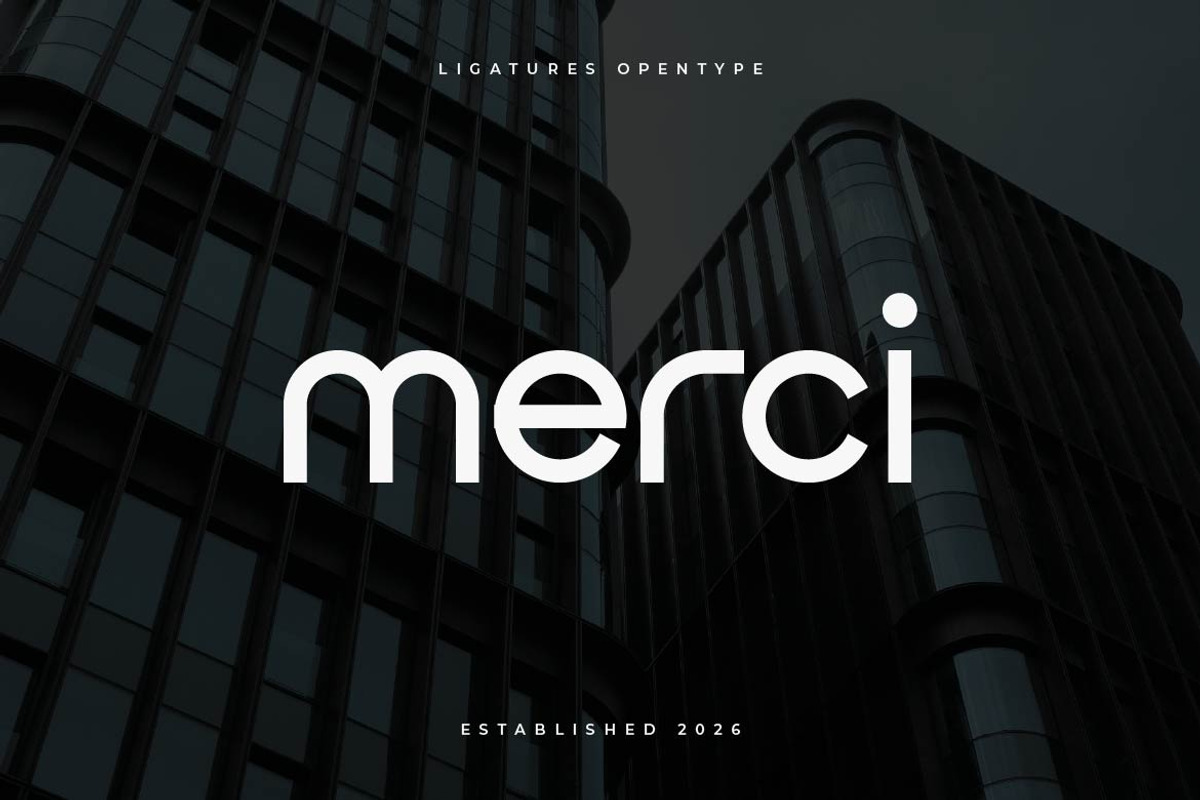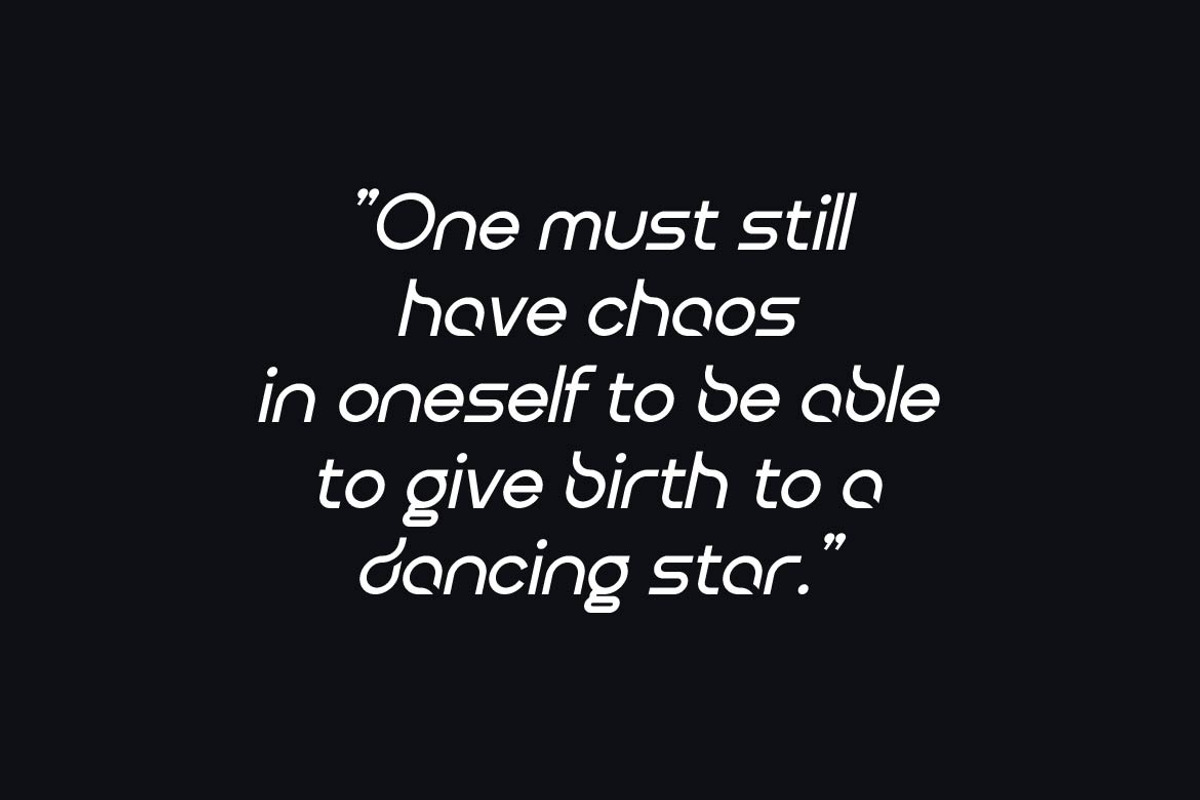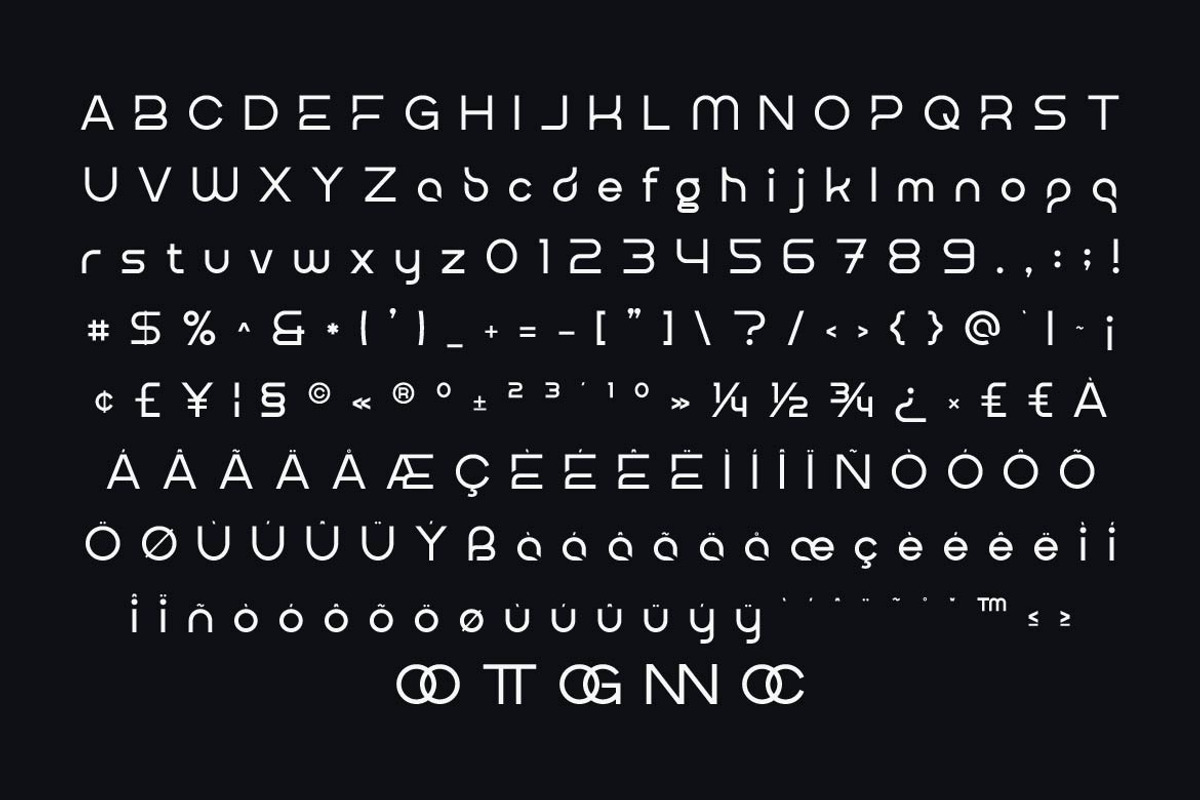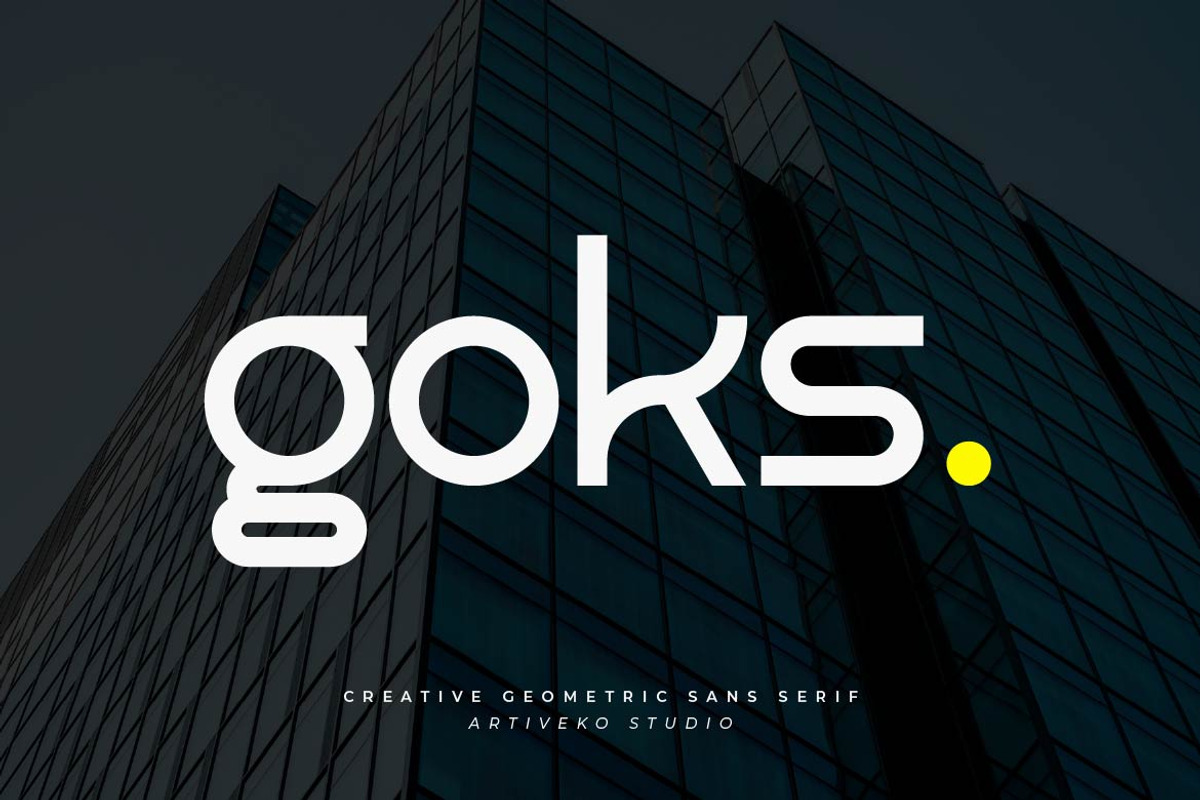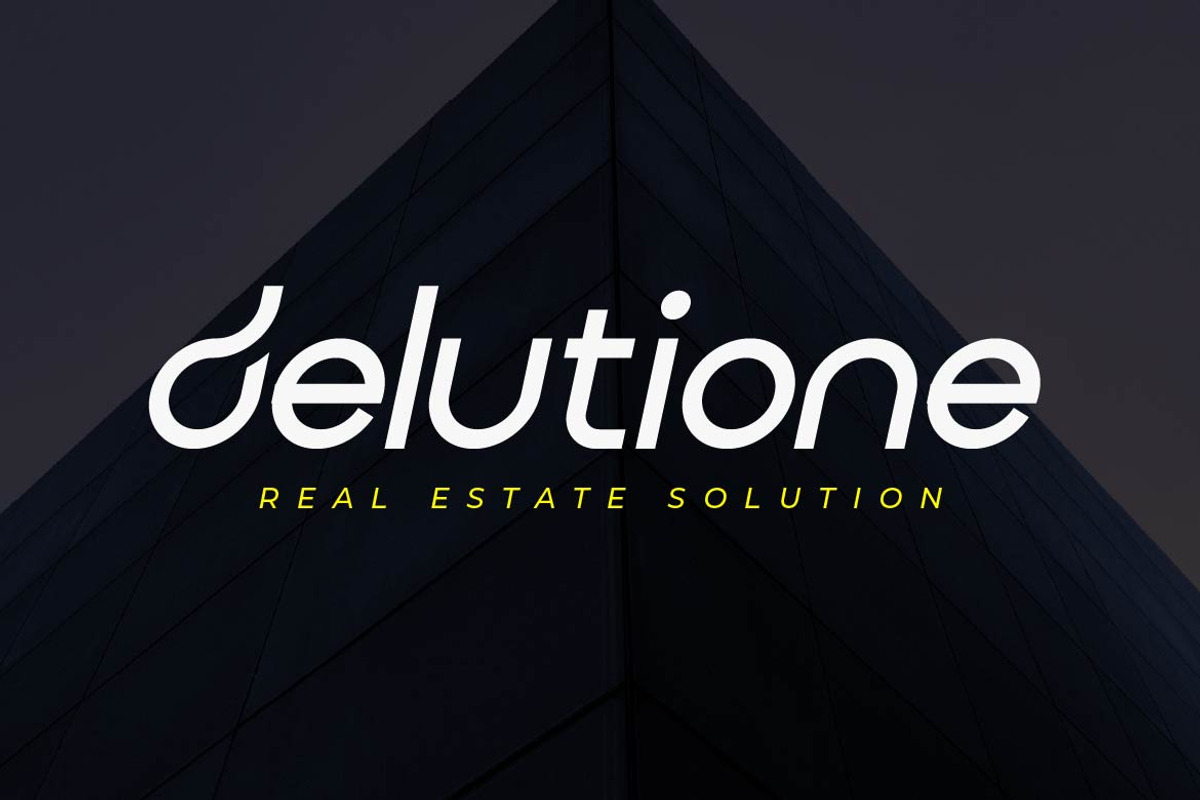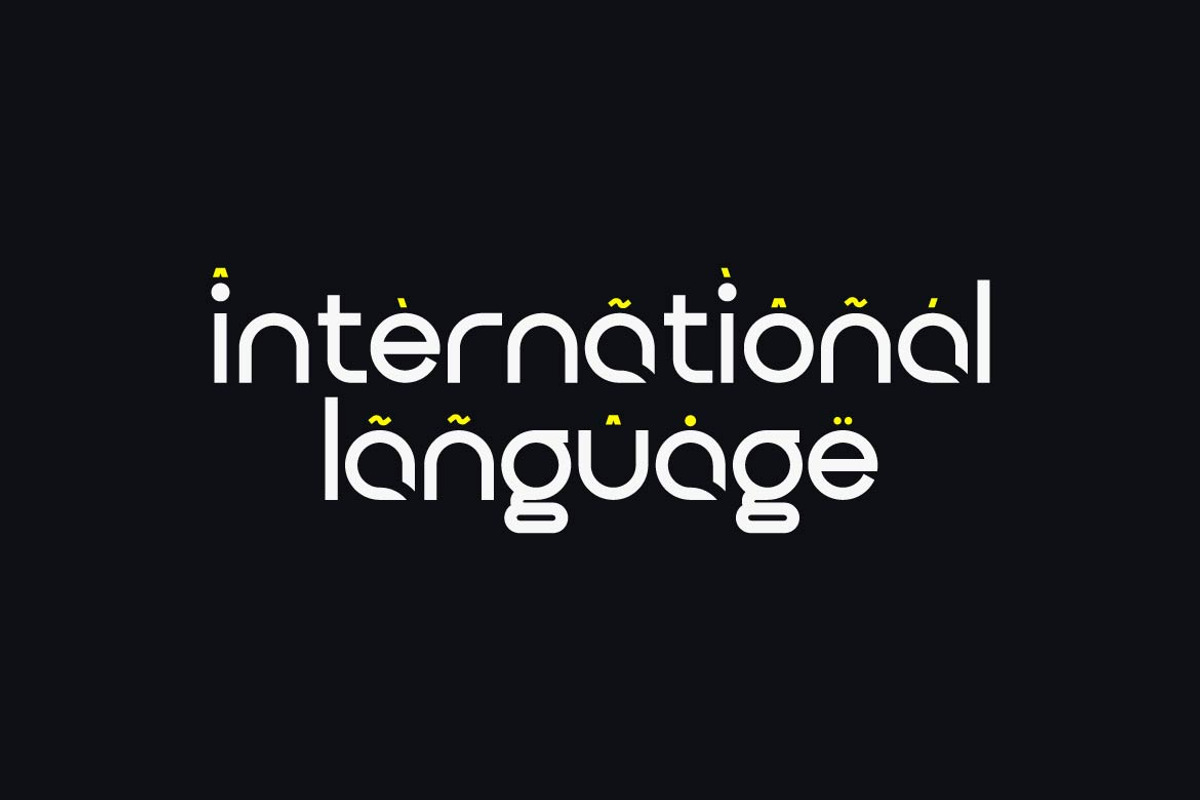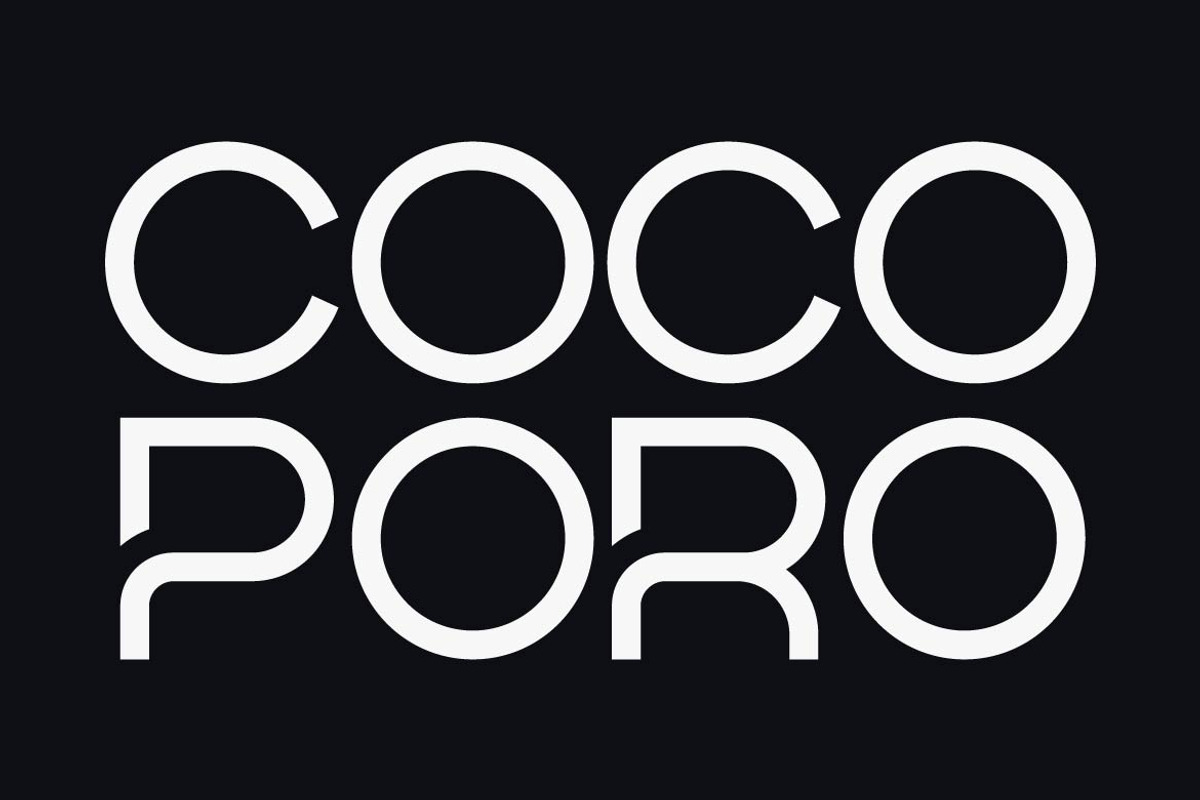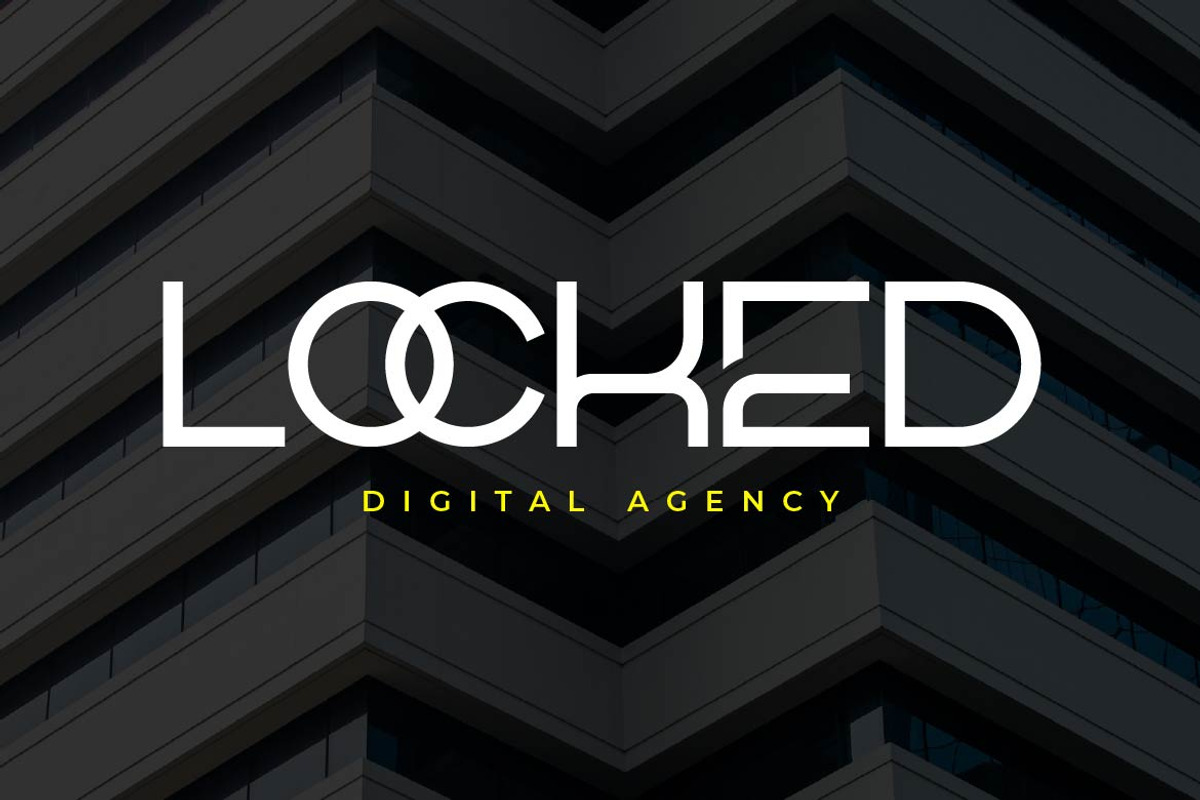
Goks – Creative Sans Serif Logo Font
Goks is a creative sans serif logo font designed to deliver bold personality and memorable brand presence. With clean structure, balanced proportions, and distinctive character details, Goks provides the perfect combination of professionalism and creativity for impactful logo design.